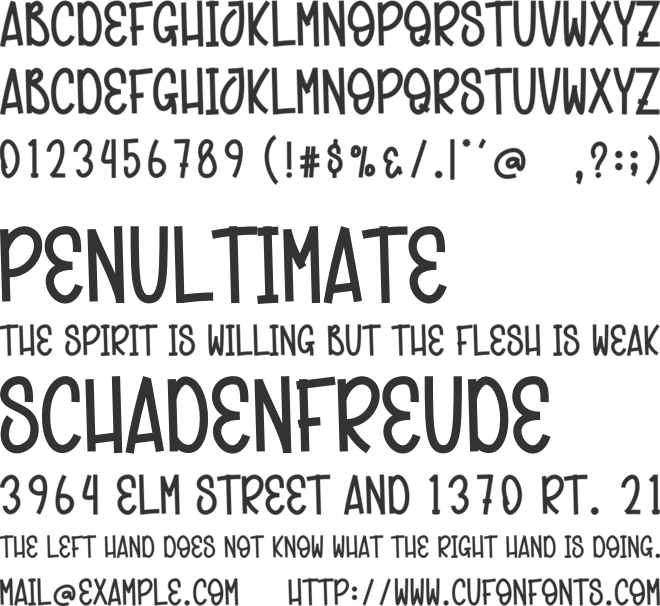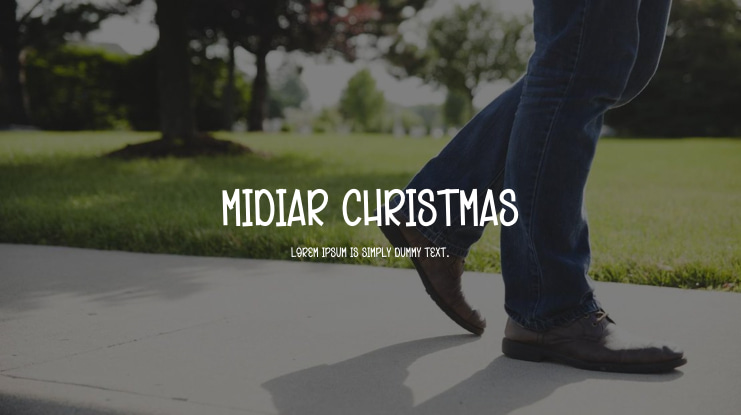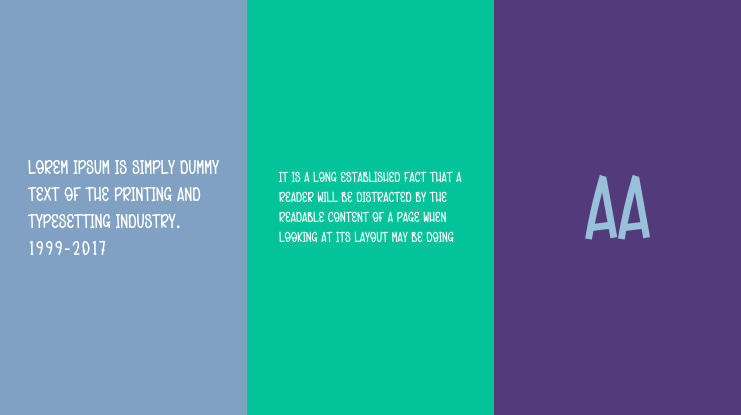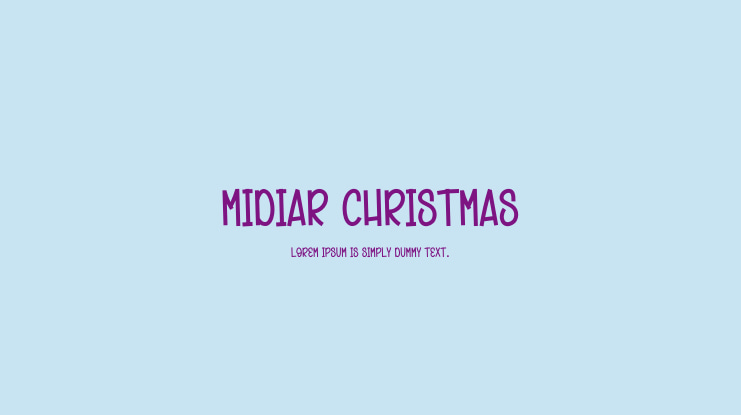
Midiar Christmas Font
The latest style letters are perfect for wall displays, wedding invitations, social media post logos, advertisements, product packaging, product designs, labels, photography, watermarks, invitations, stationery, and any project that requires tasteful handwriting.